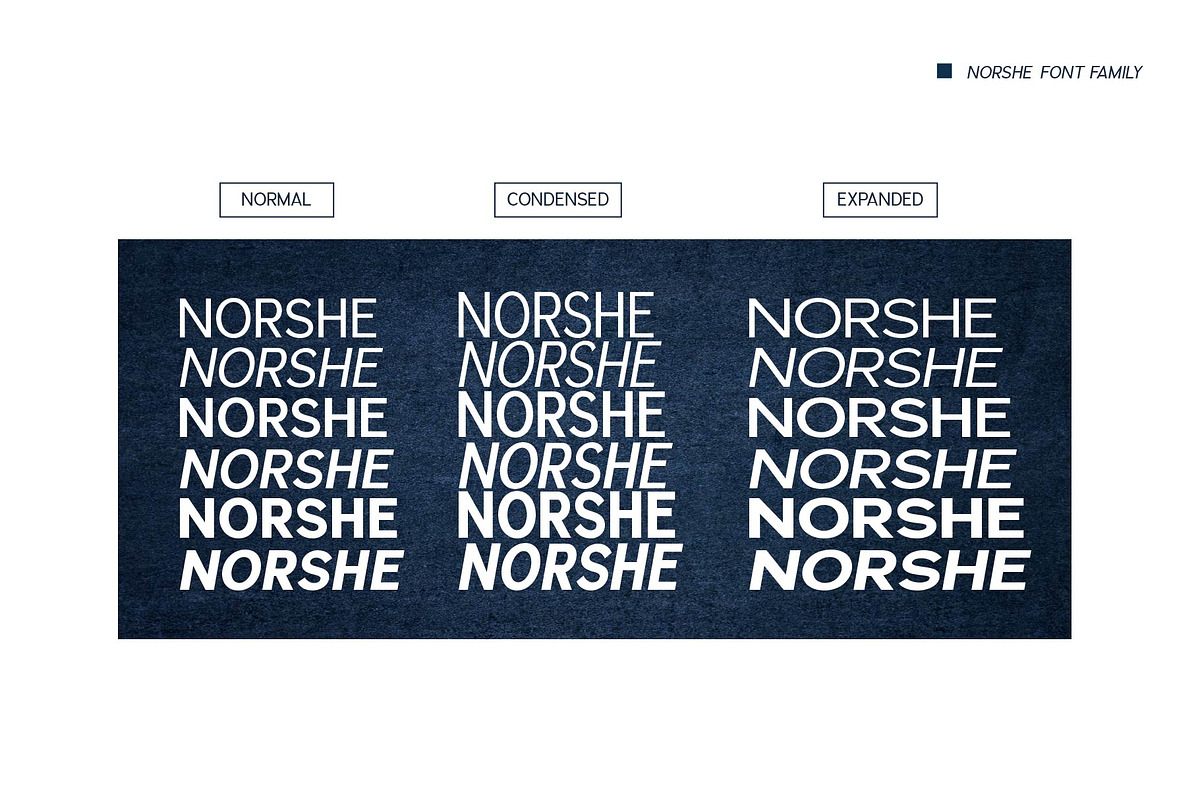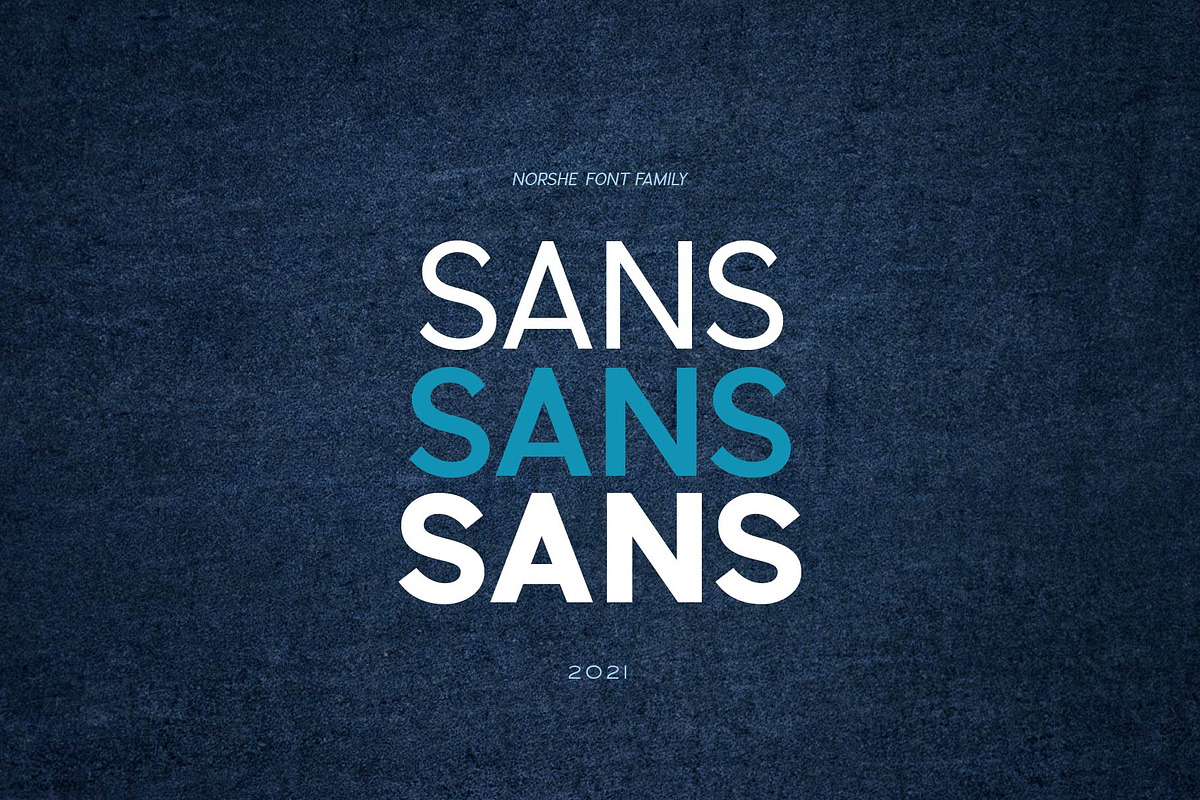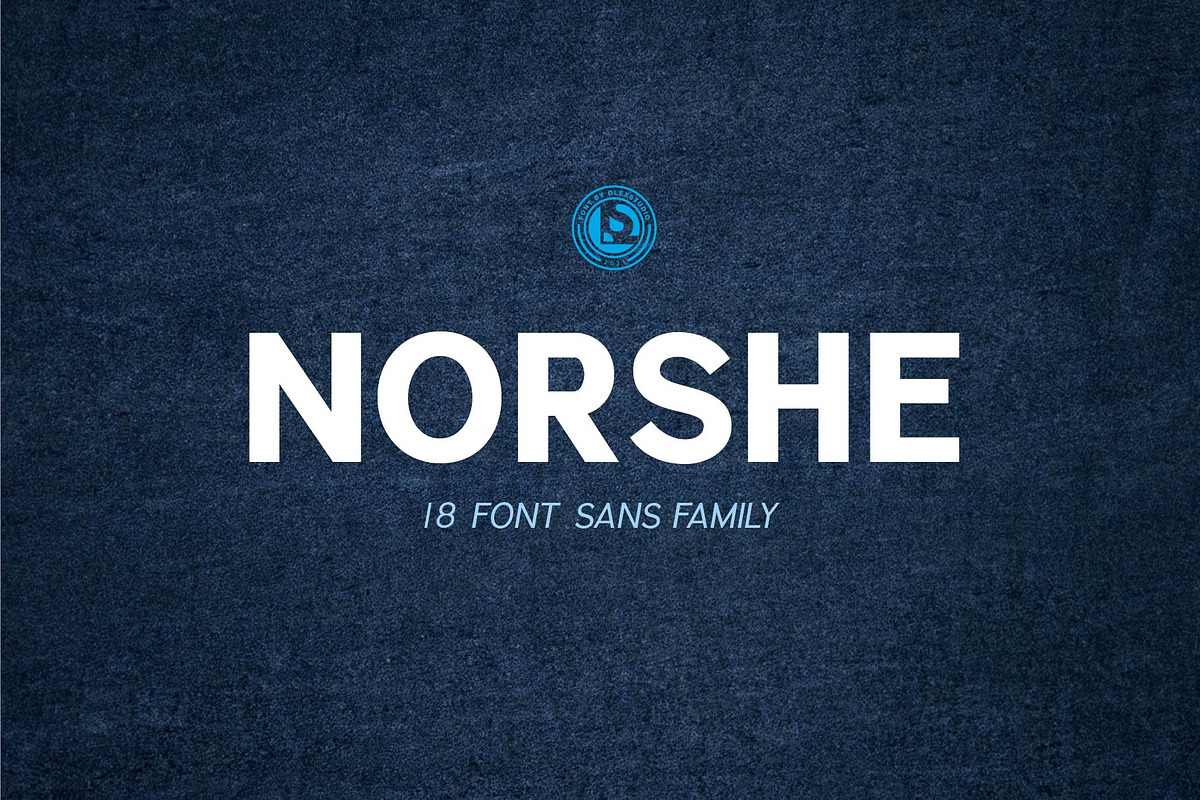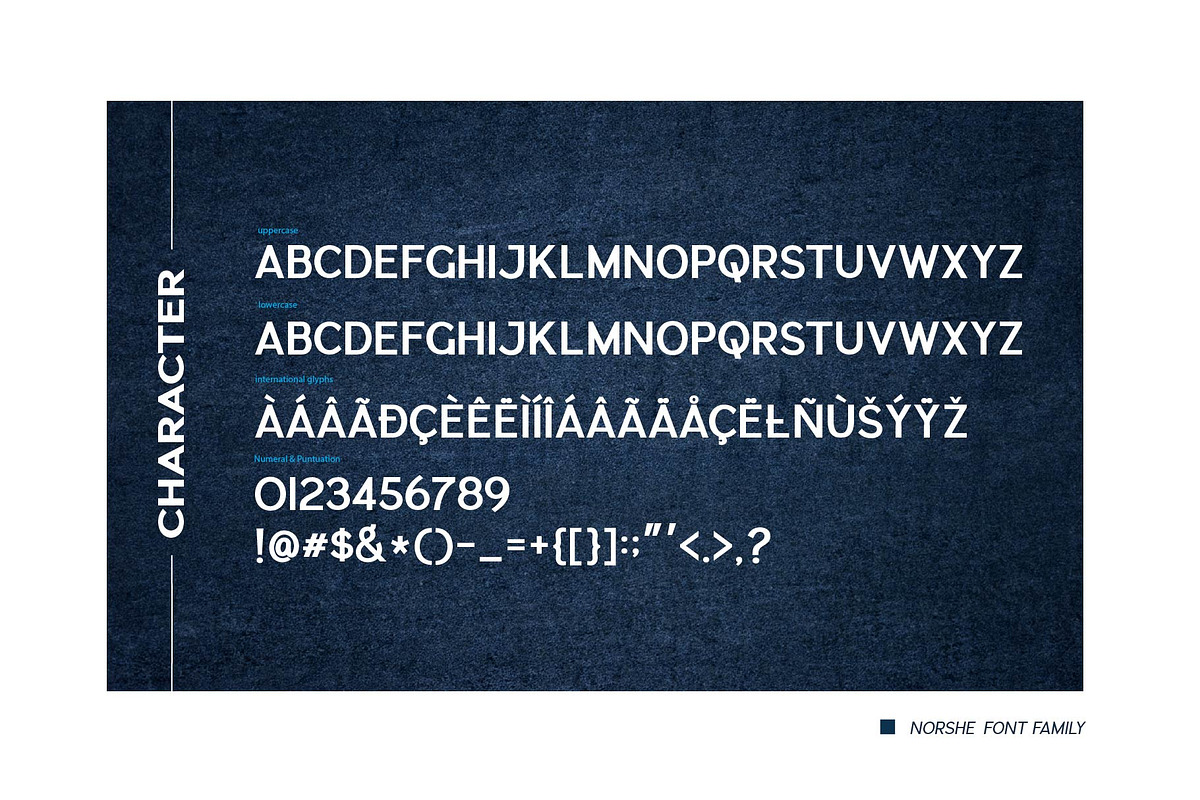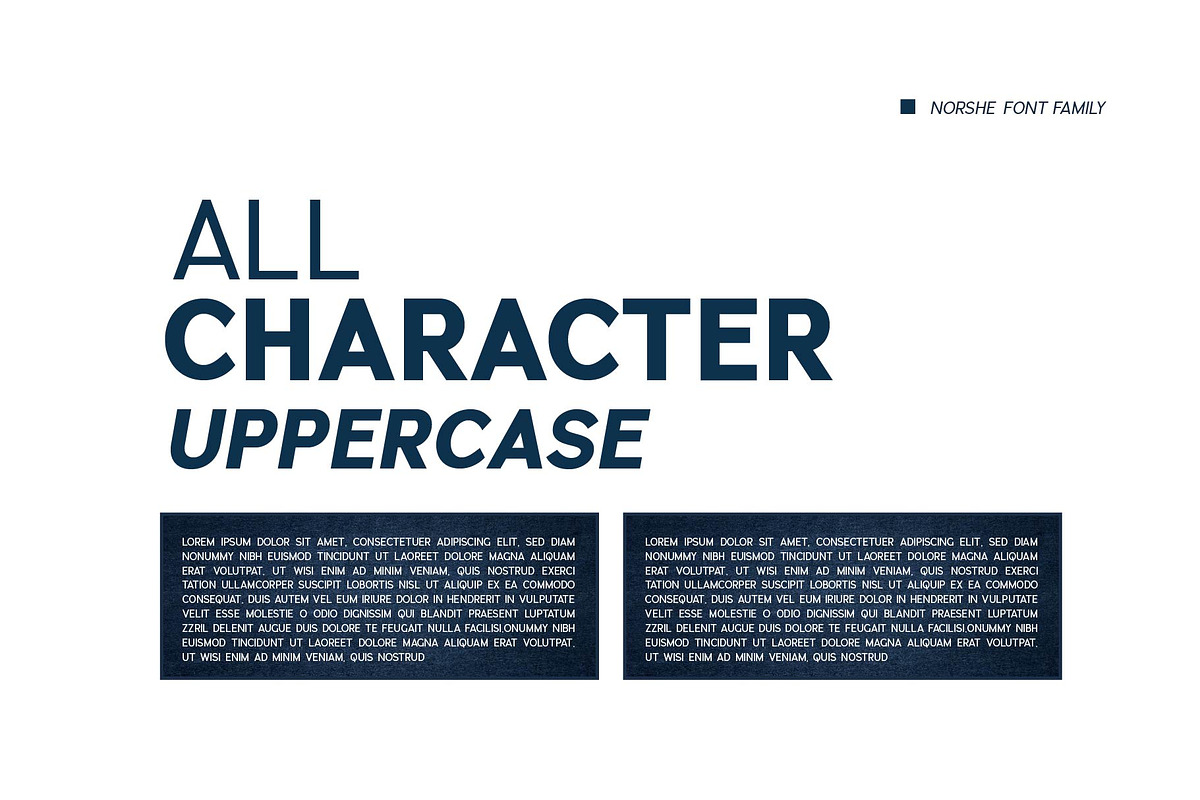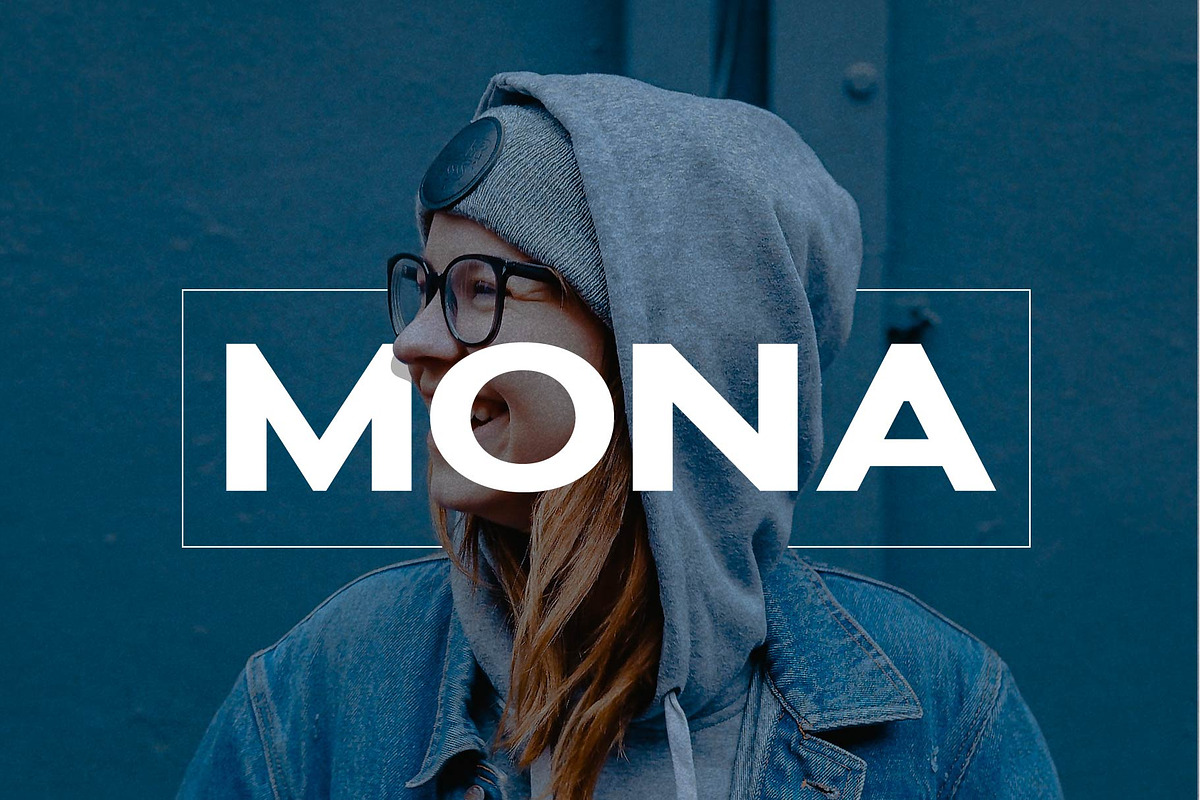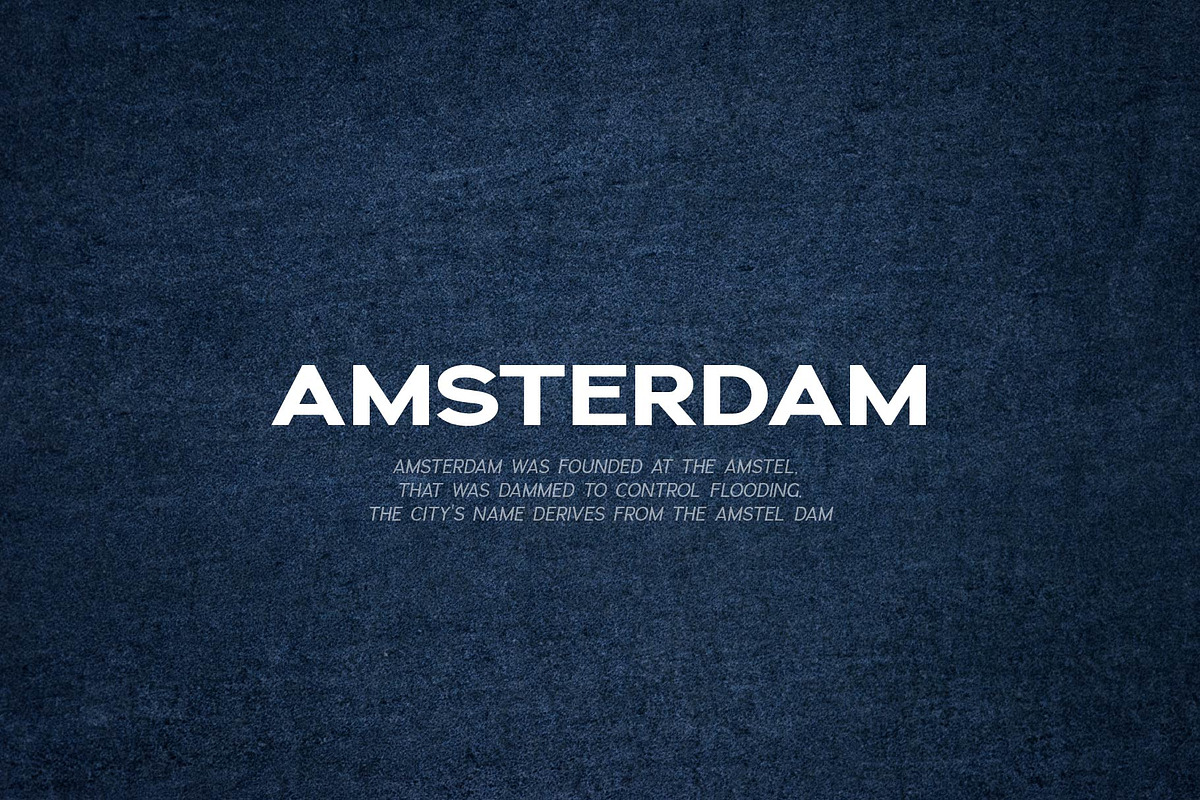
NORSHE - Sans Family
NORSHE - Sans Family is a very good font family for your various designs, with 18 character fonts so you can create attractive product designs with this font.
NORSHE - Sans Family contains standard characters, All Character is Uppercase, numbers, punctuation, ligatures and international glyphs. You will receive OTF, TTF files & WEBFONT.
- Norshe Light Condensed
- Norshe Light Condensed Italic
- Norshe Condensed
- Norshe Condensed Italic
- Norshe Condensed Bold
- Norshe light
- Norshe light Italic
- Norshe Regular
- Norshe Italic
- Norshe Bold
- Norshe Bold Italic
- Norshe Expanded Light
- Norshe Expanded Light Italic
- Norshe Expanded
- Norshe Expanded Italic
- Norshe Condensed Italic
- Norshe Bold Expanded
- Norshe Bold Expanded Italic